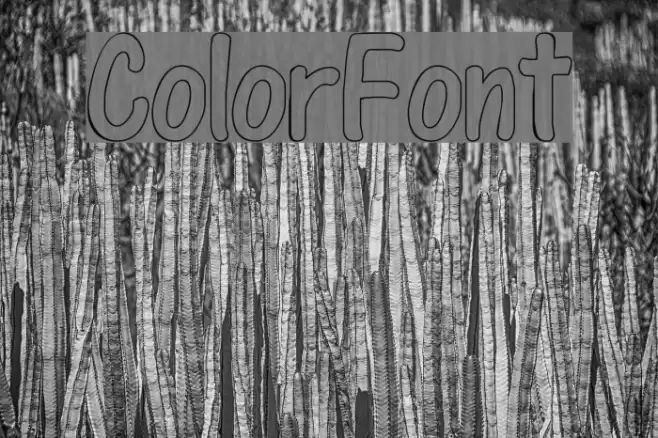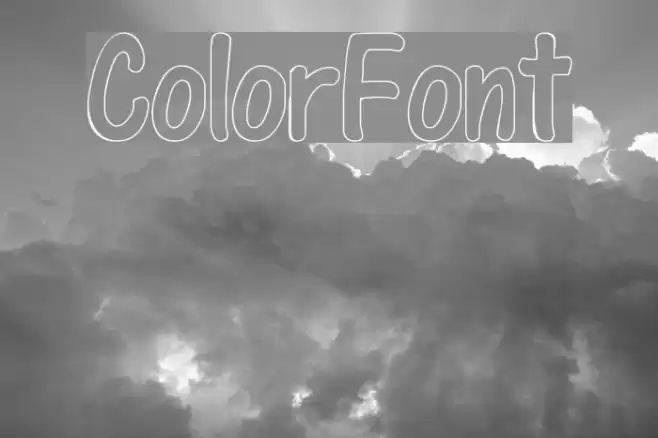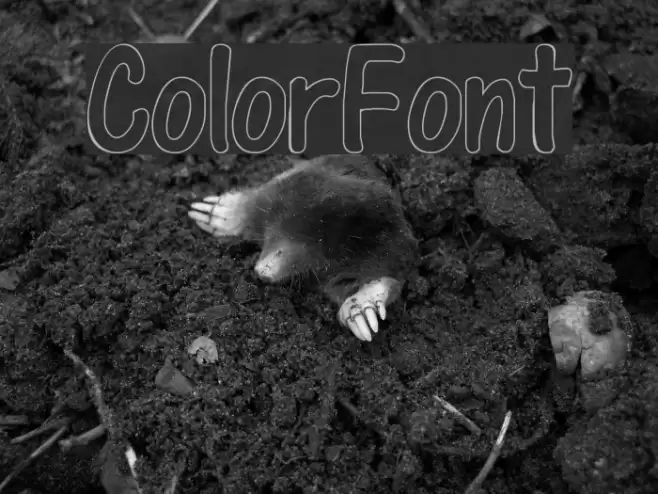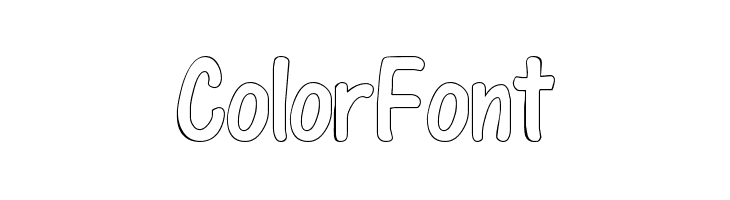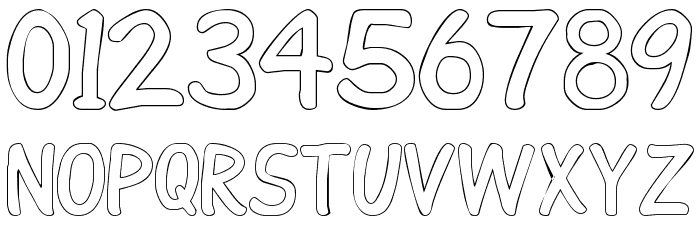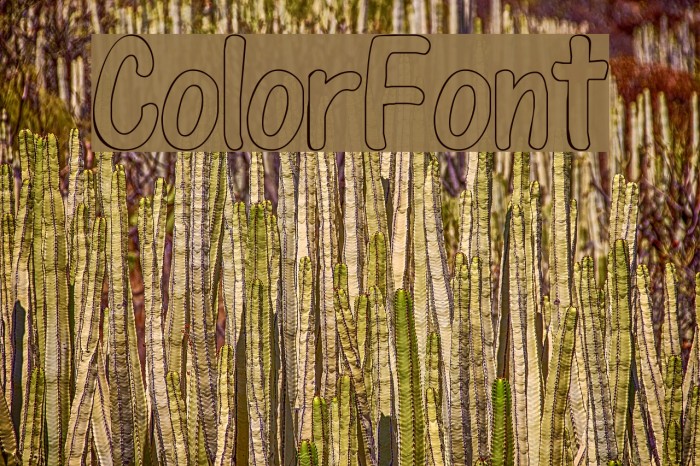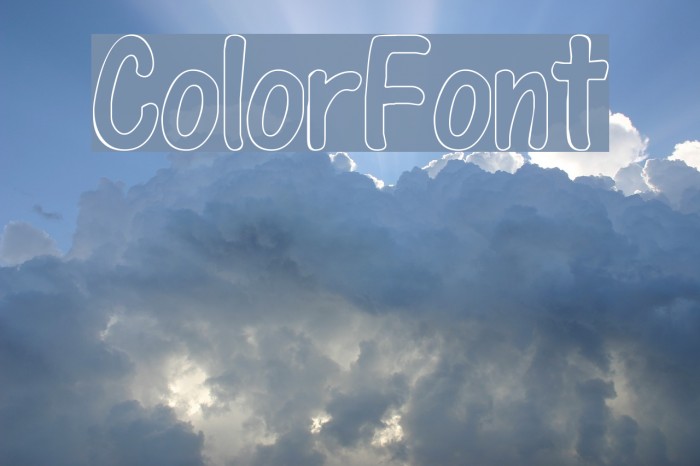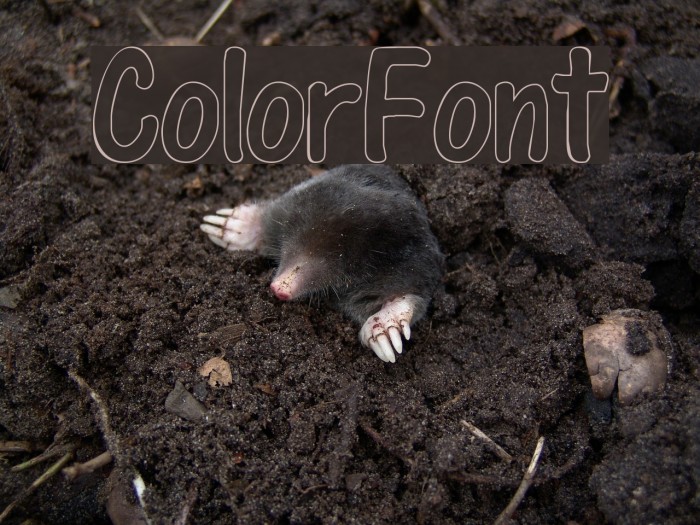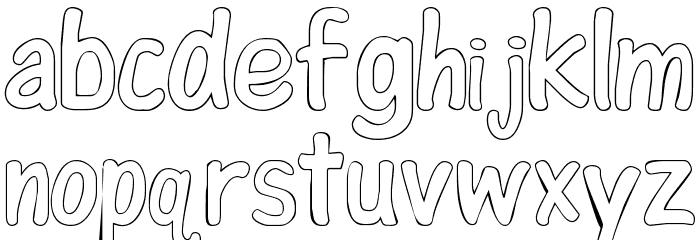
ColorFont Font
ColorFont Description
This playful and whimsical font features rounded, bubbly characters with a hand-drawn appearance. The letters have a consistent stroke width, giving them a uniform look while maintaining a casual and friendly vibe. The uppercase and lowercase letters are well-proportioned, and the numbers are easily distinguishable. The font's outline style adds a unique touch, making it stand out for creative projects. Its informal nature makes it suitable for designs that aim to convey a sense of fun and approachability.
A playful, hand-drawn font with rounded, bubbly characters and an outline style from Uncategorized fonts.
- Proposed Projects: Ideal for children's books, playful branding, greeting cards, and casual invitations.
- Overall Style: Playful, Whimsical